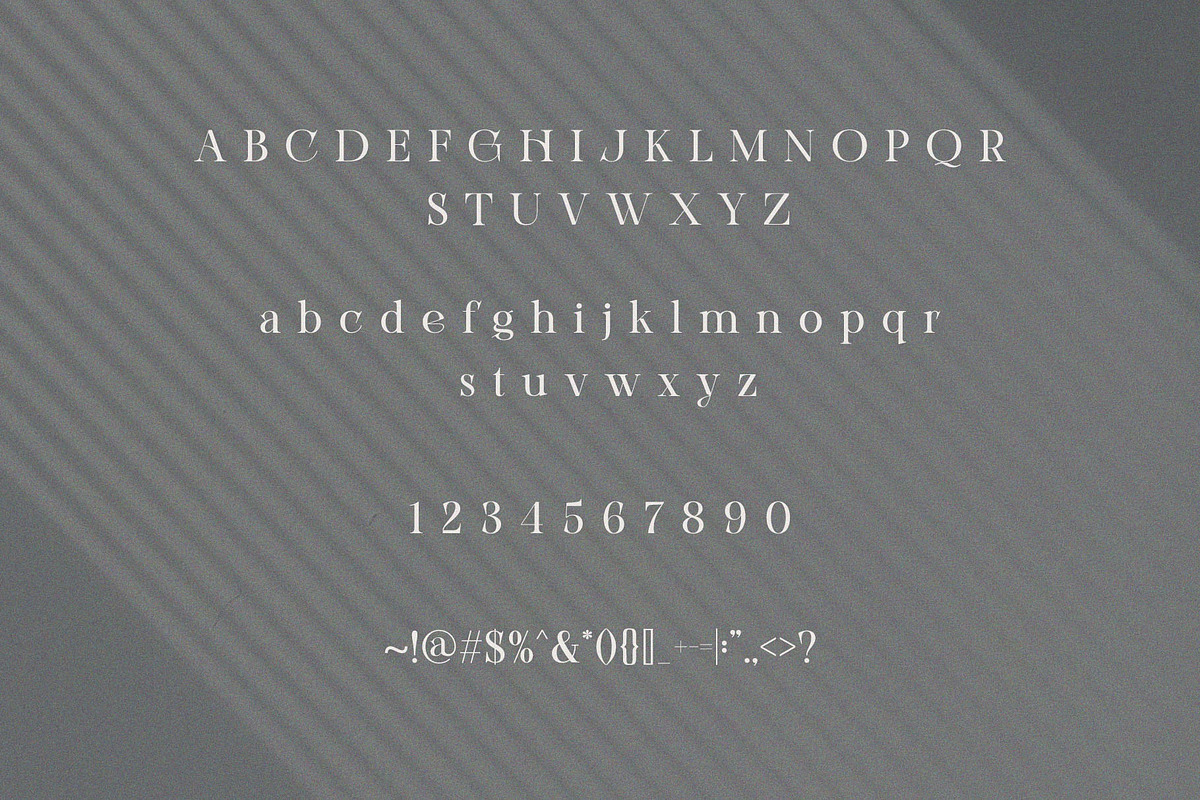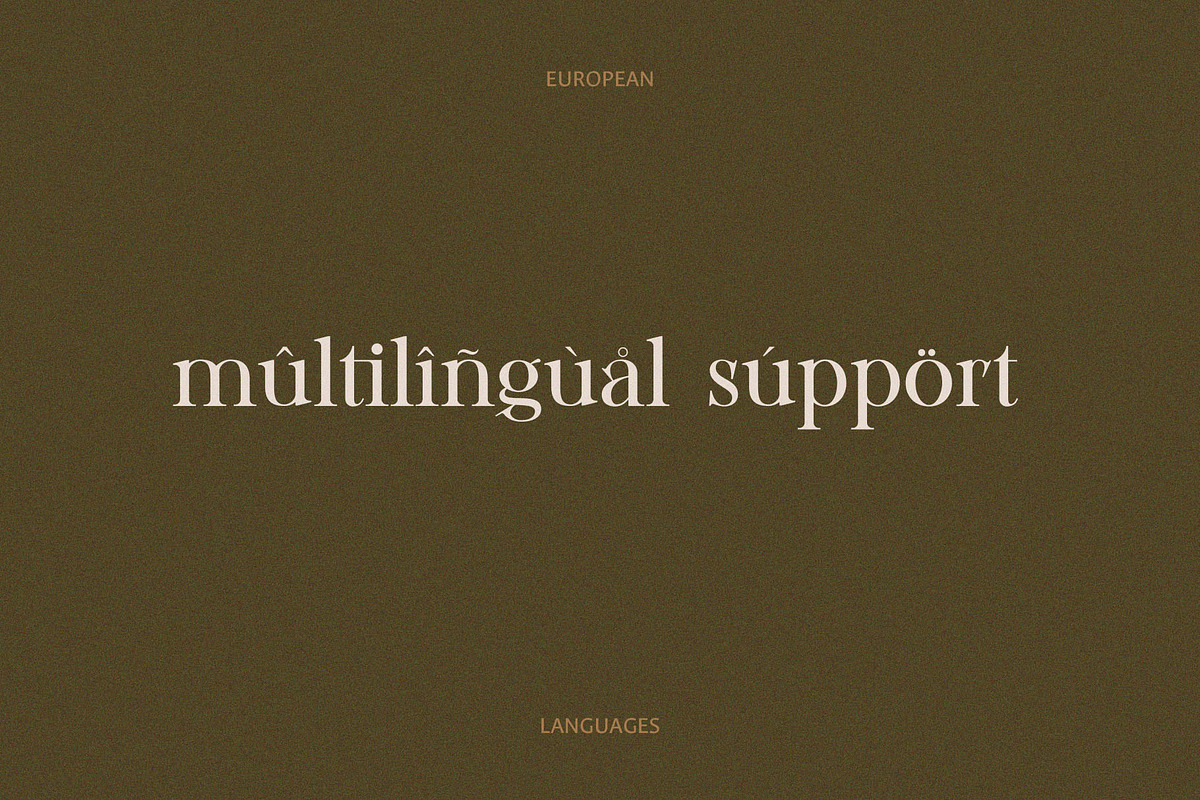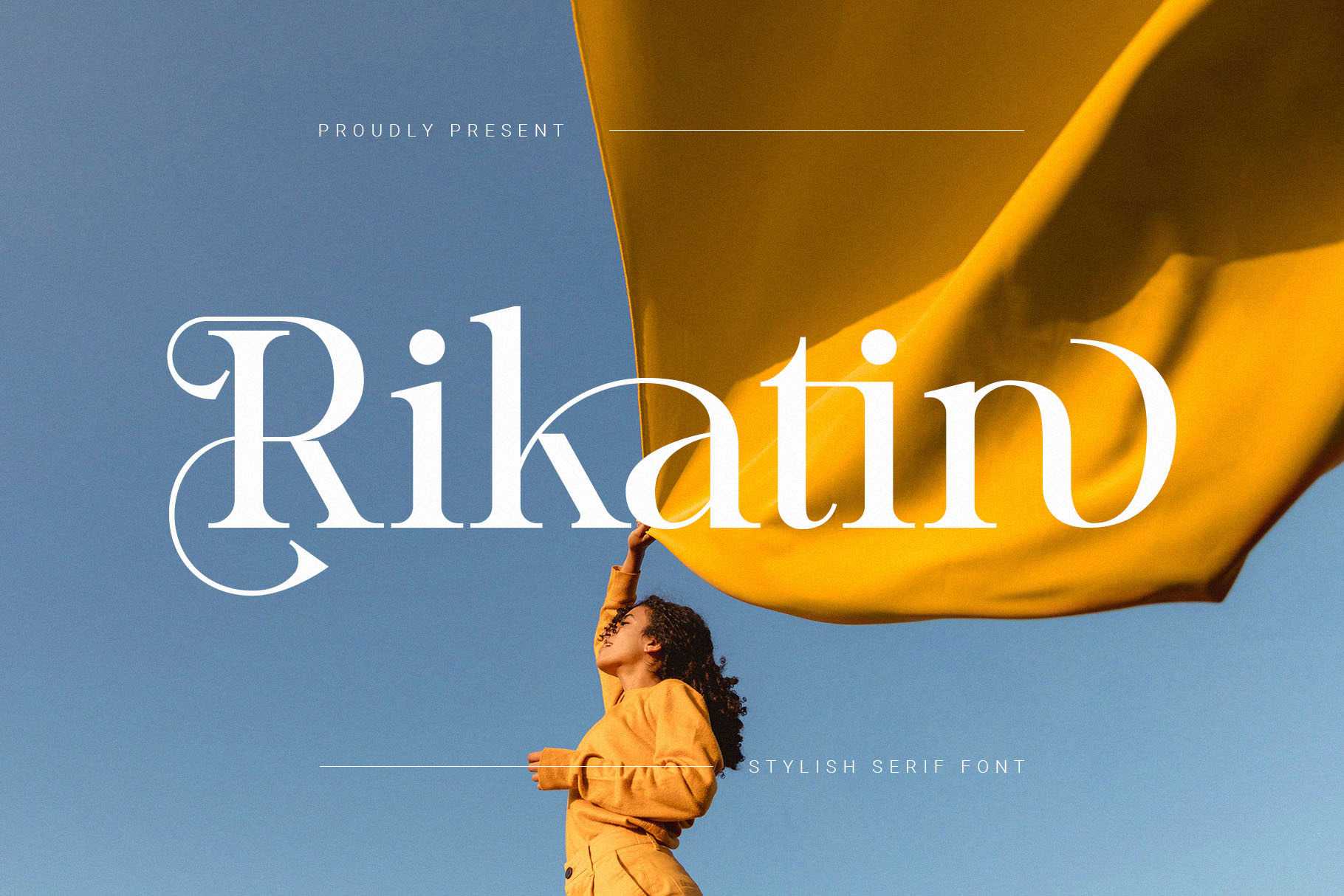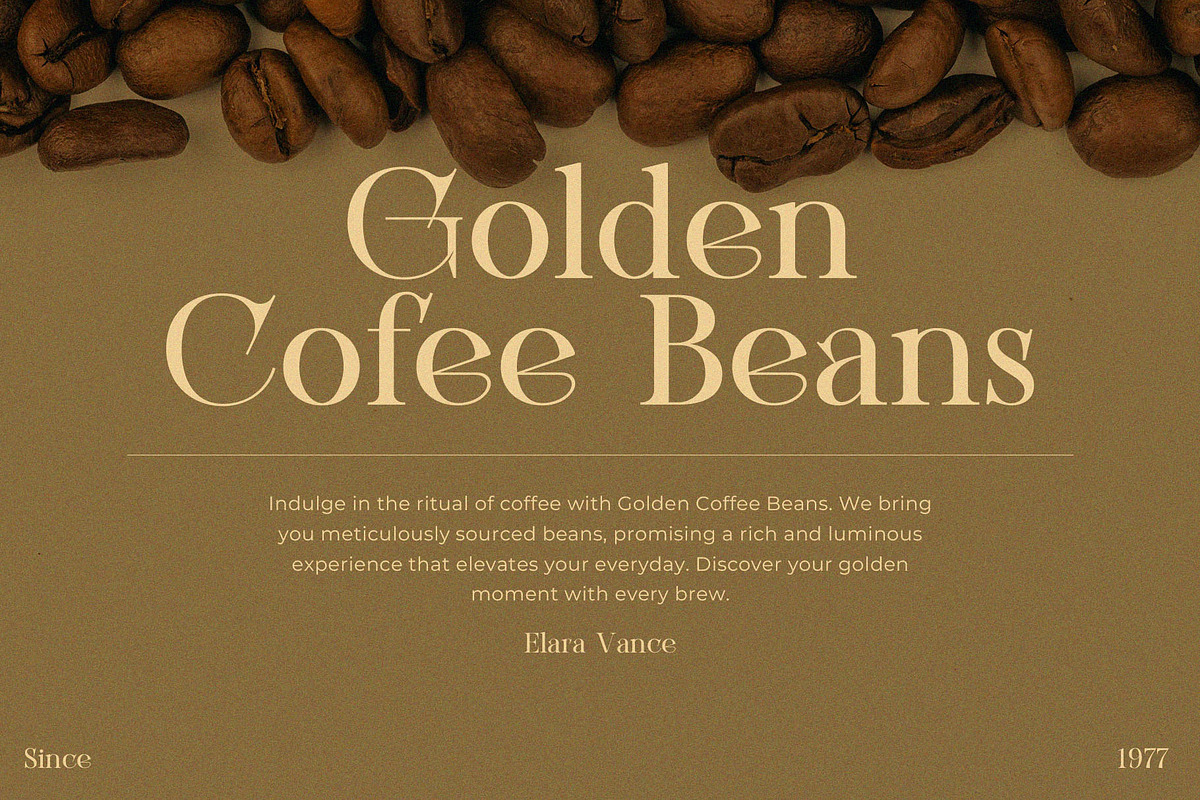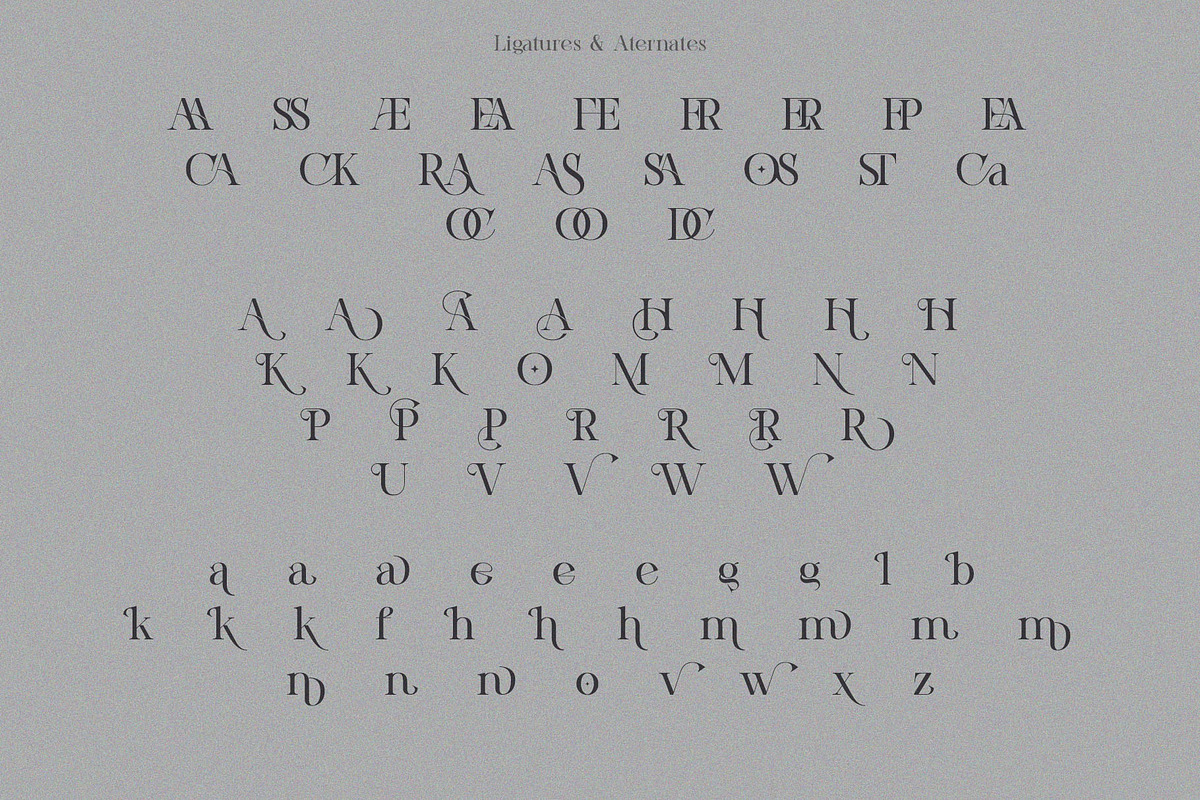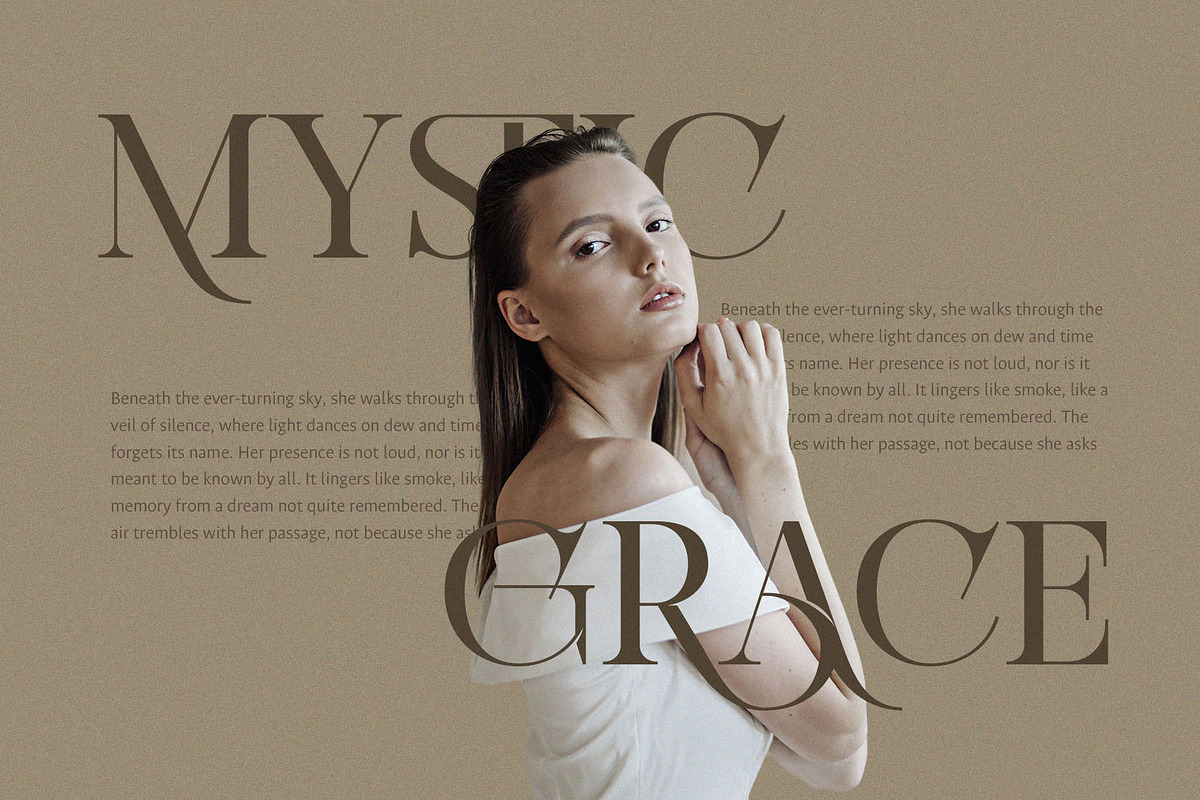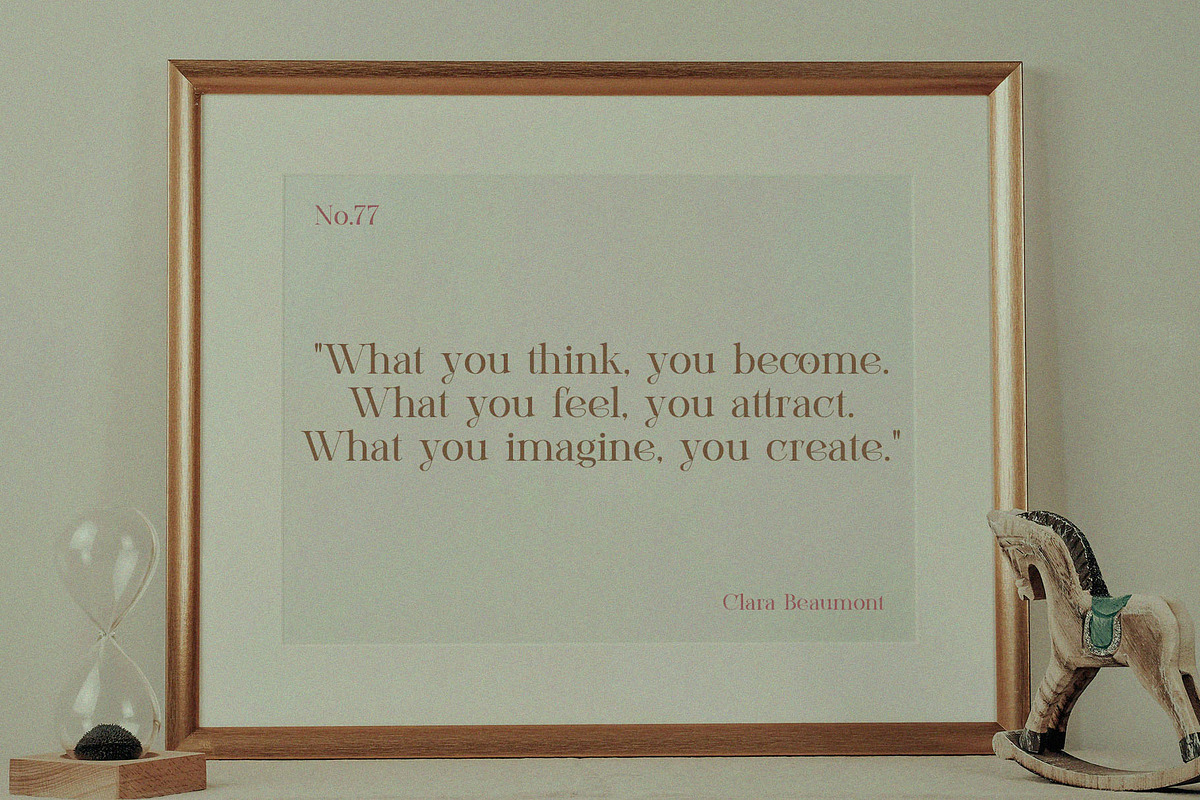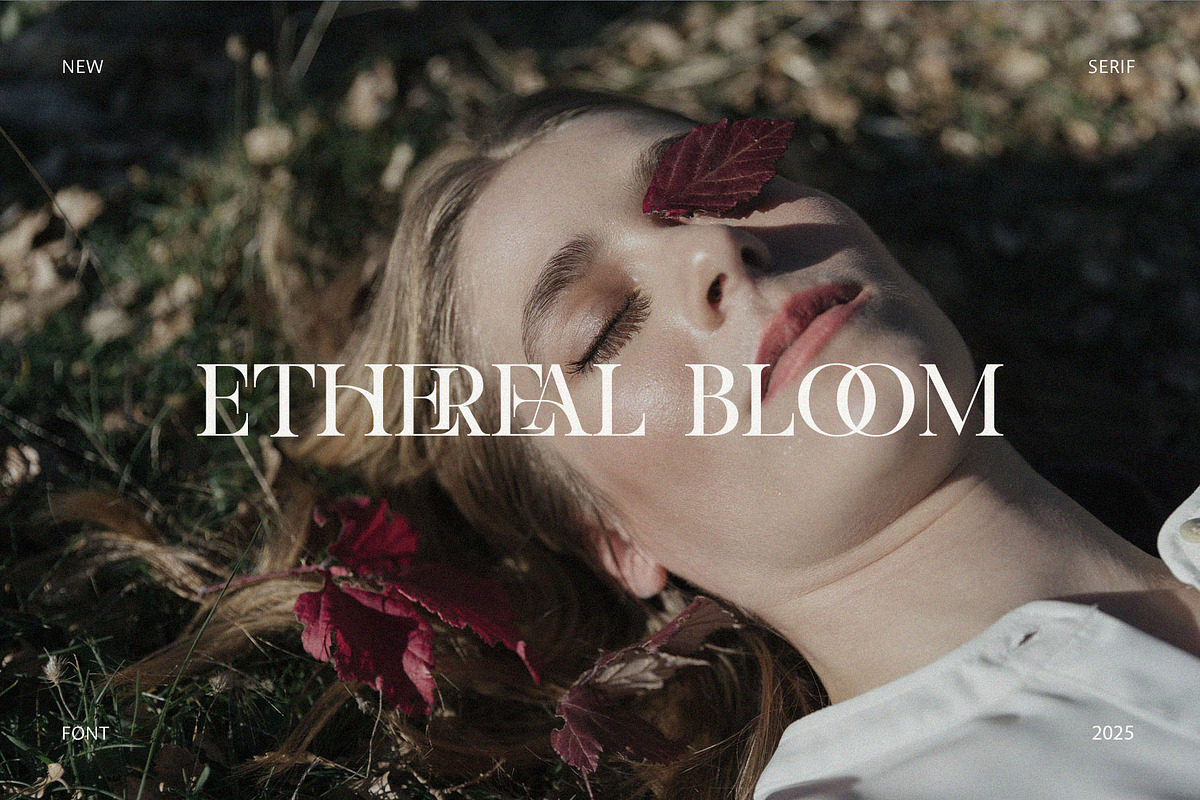
Rikatin – Stylish Display Serif Font
Introducing Rikatin Modern Display Serif Font. Rikatin is a modern and classy typeface, best used as a display for headings, logos, branding, magazines, product packaging and invitations. Rikatin come with clean lines and smooth curves give any project an extra touch of class.